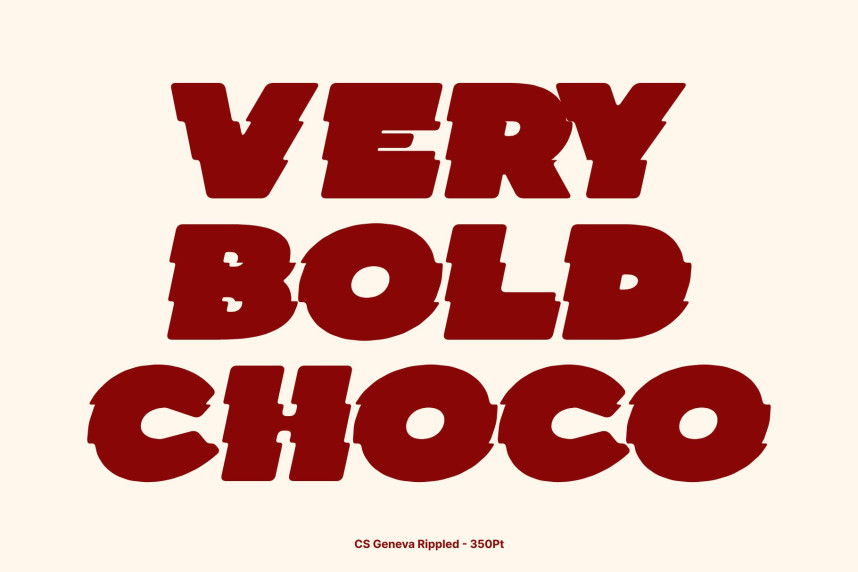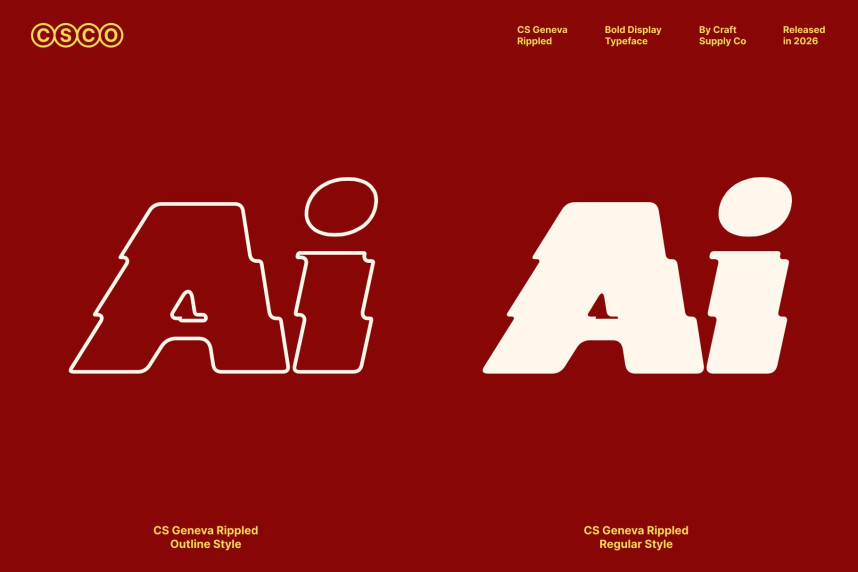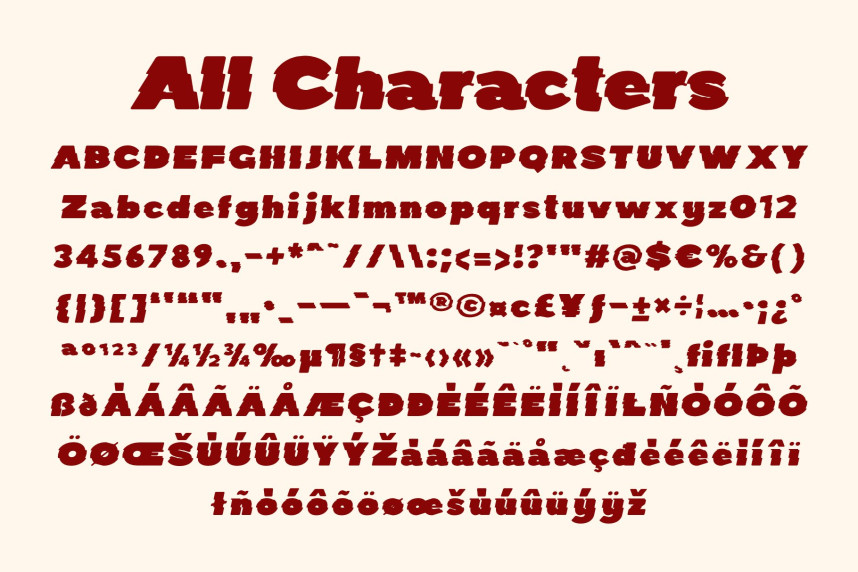
CS Geneva Rippled Font
CS Geneva Rippled Font – Bold Sans Serif Font with Cool Modern Liquid Expression
Striking Shapes with Confident Presence
This is a bold sans serif display font designed to deliver a strong and unmistakable visual statement. Built with thick strokes, modern geometric structure, and clean construction, it instantly commands attention in any layout. Every letterform is carefully crafted to feel solid, expressive, and intentional, resulting in a typeface that radiates confidence, style, and contemporary strength.